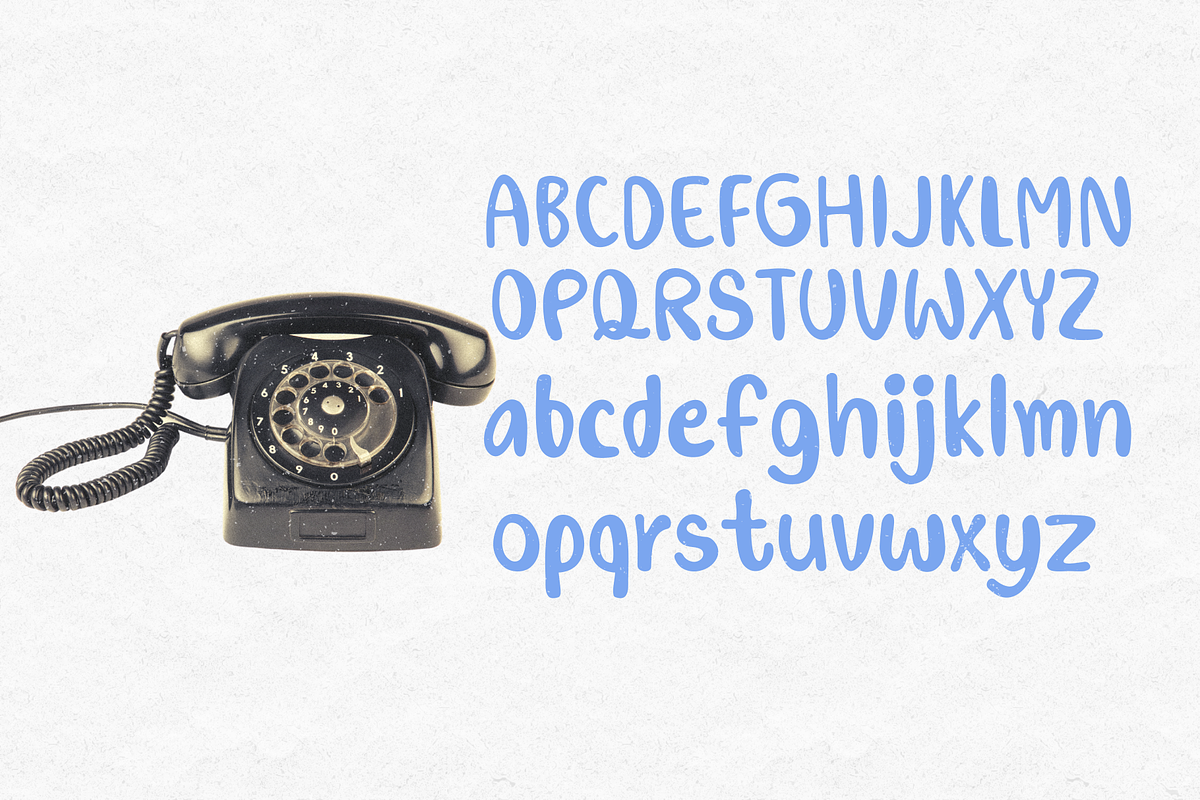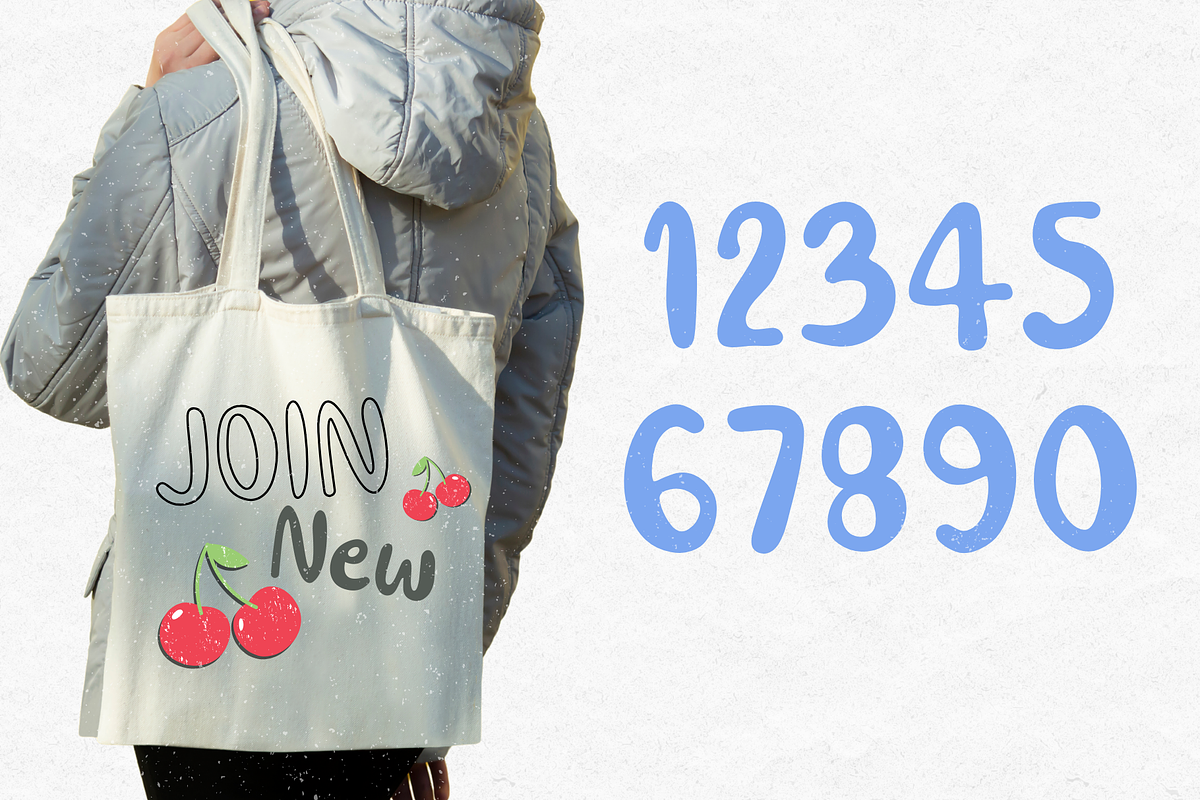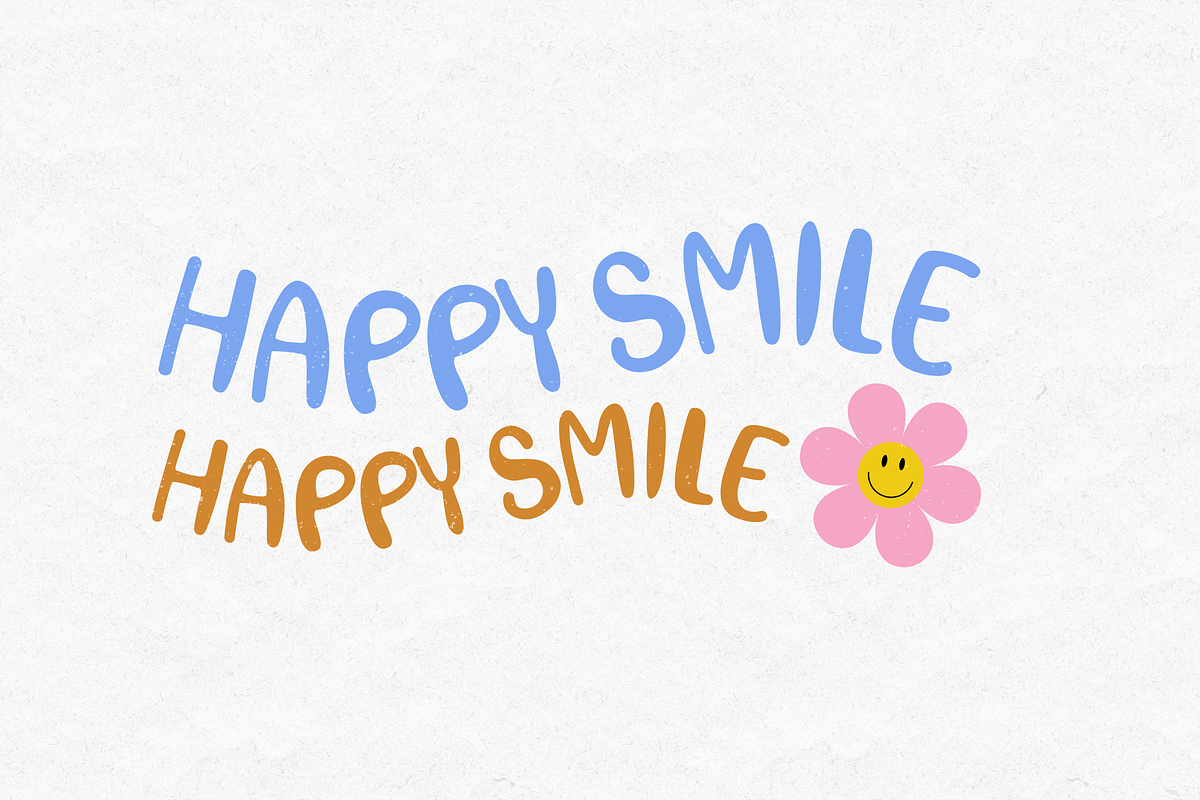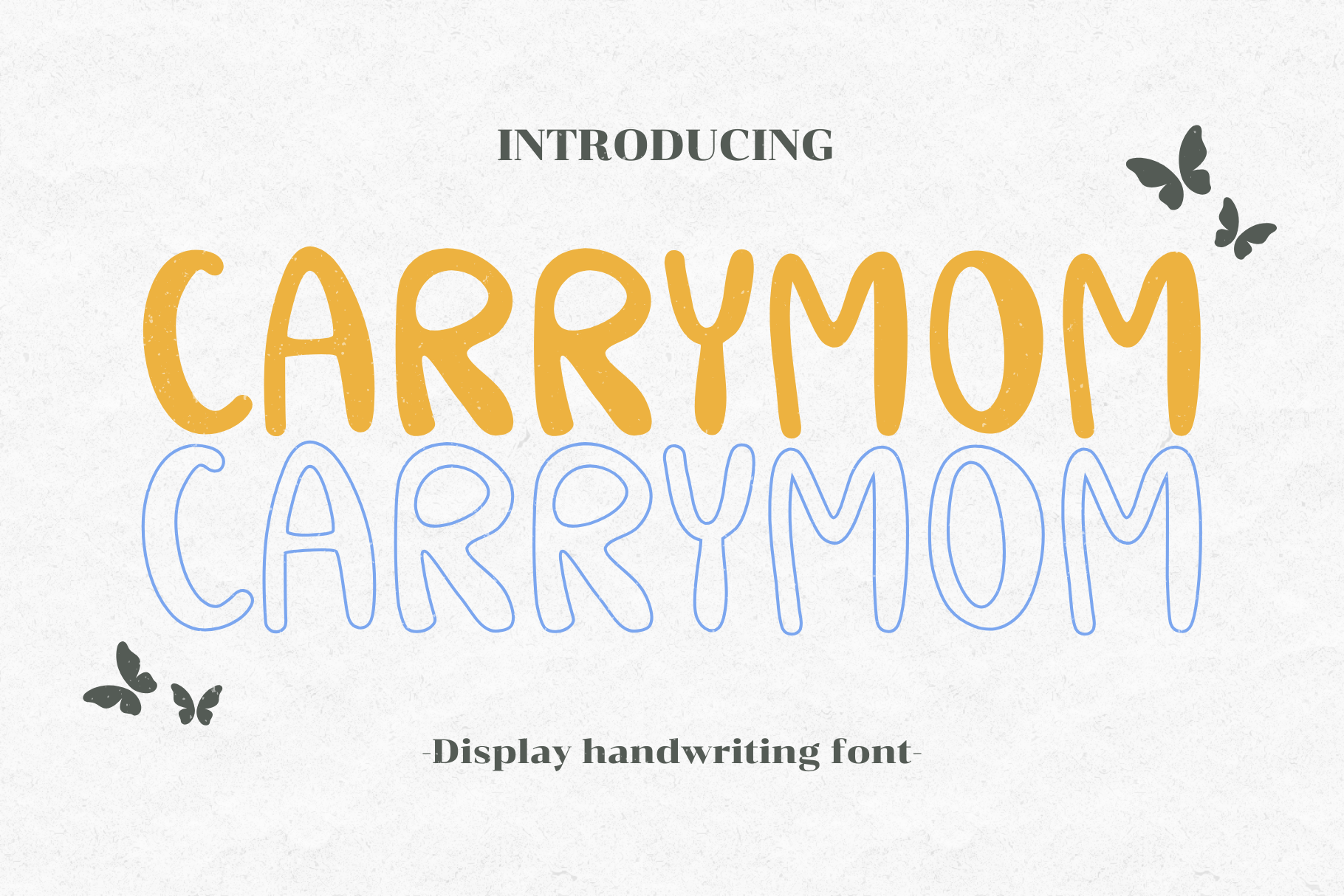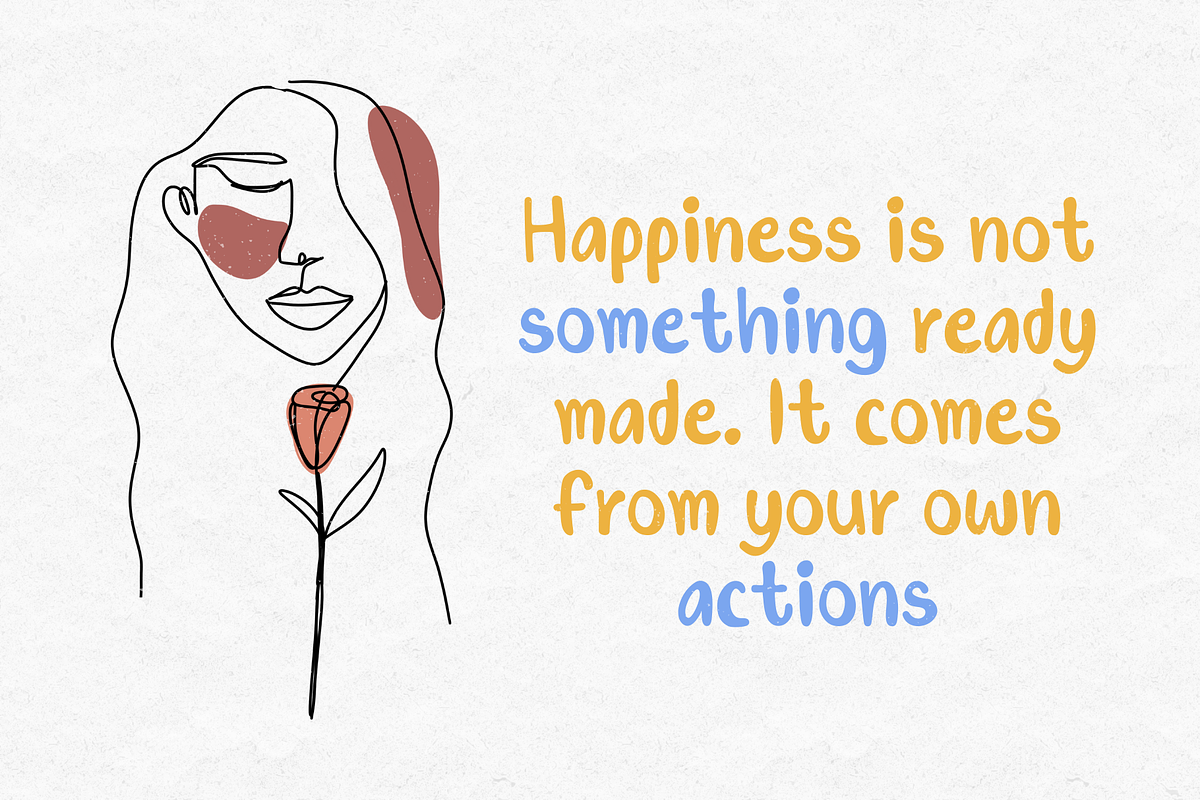
Carrymom font
An adorable decorative font that hides sweetness and charm, making your design work captivating and charming. The curved edges of the letters add an extra touch of loveliness.